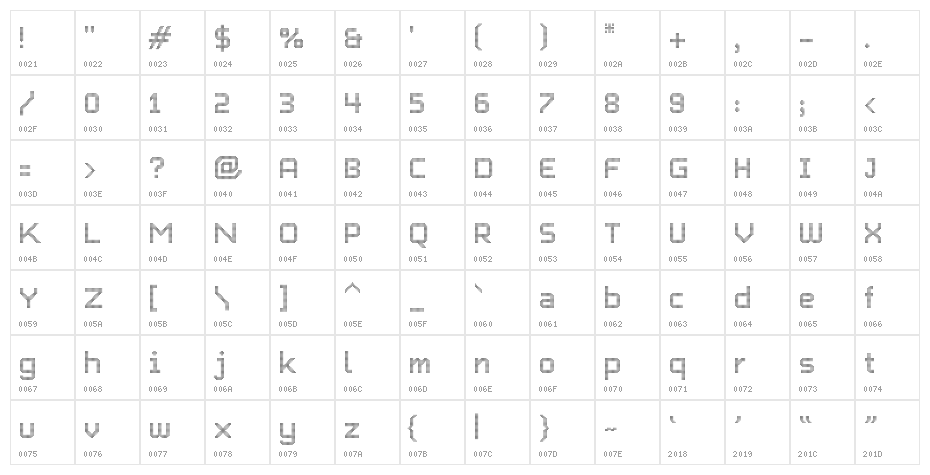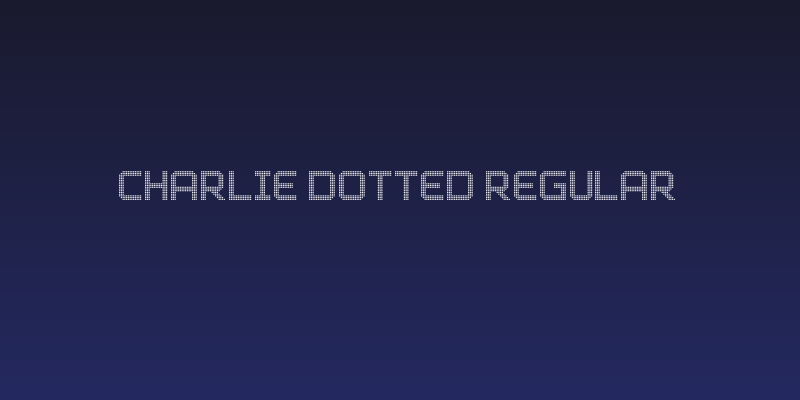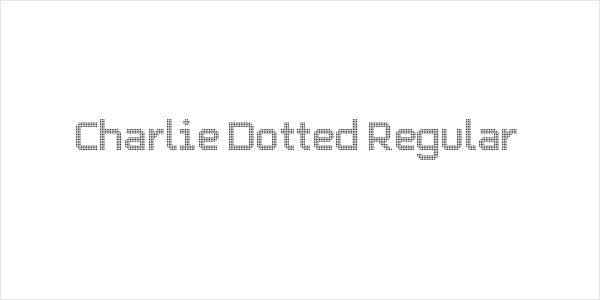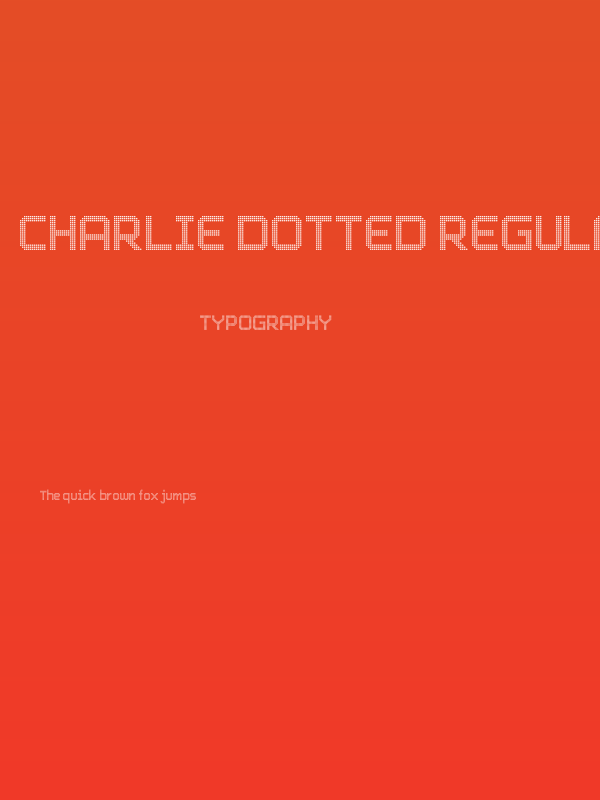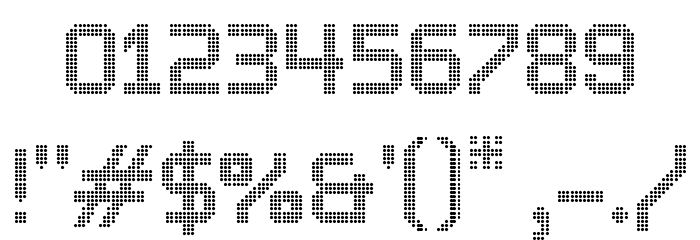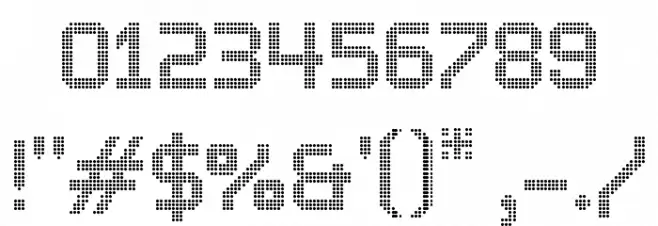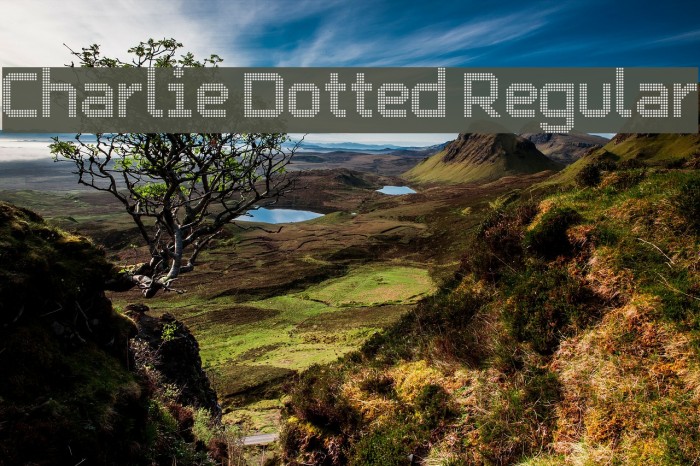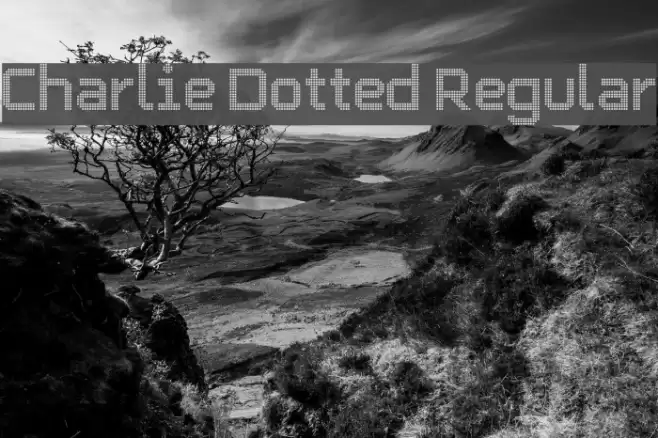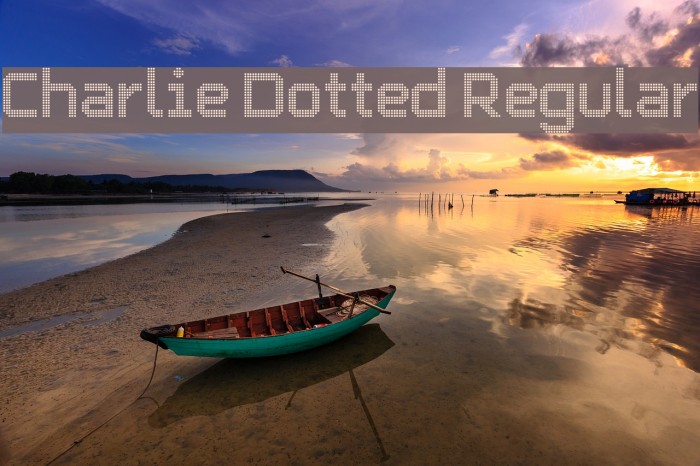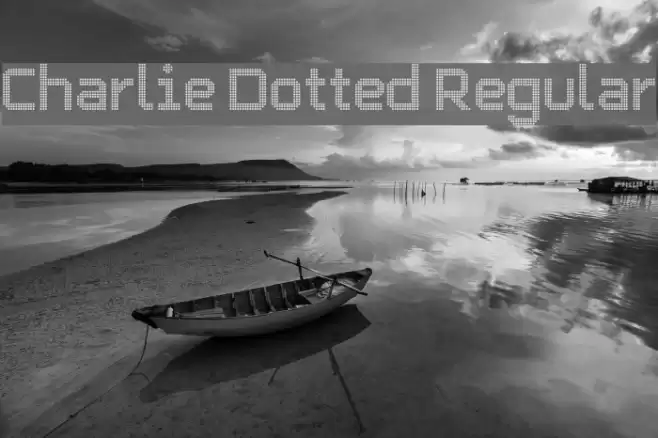
Charlie Dotted Regular Font
Charlie Dotted Regular Description
This font features a unique dotted design, where each character is composed of small, evenly spaced dots forming the shape of letters and numbers. The style is geometric and structured, giving it a digital or pixelated appearance. The uppercase and lowercase letters maintain a consistent height and width, providing a uniform look. Numbers and special characters follow the same dotted pattern, ensuring cohesion across all elements. This font is ideal for projects that require a modern, tech-inspired aesthetic, offering a playful yet precise visual impact.
| Use Case | Headlines, Logos, Digital Art |
| Proposed Projects | Ideal for digital displays, tech-themed posters, modern art projects, and creative branding. |